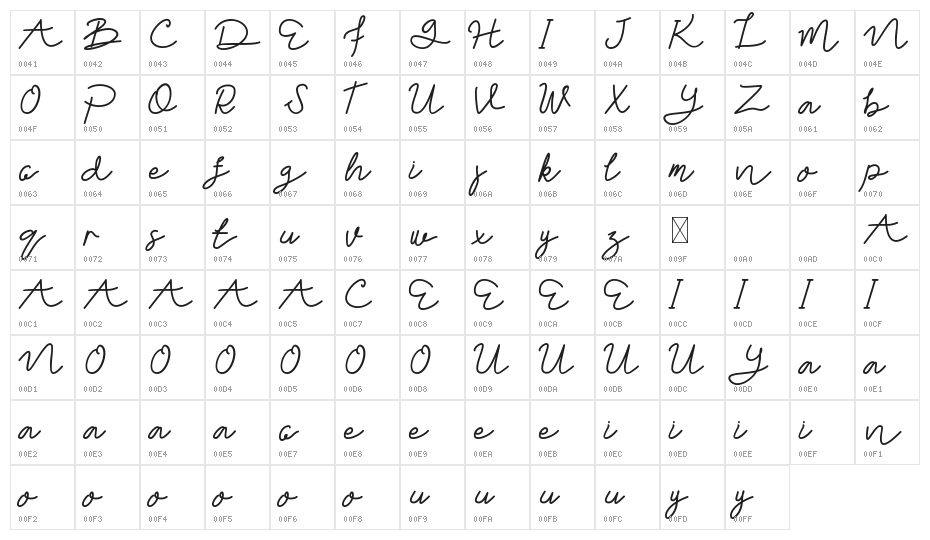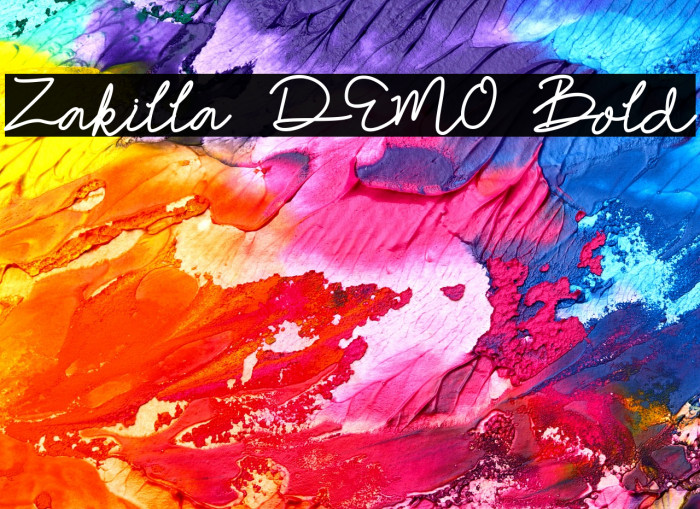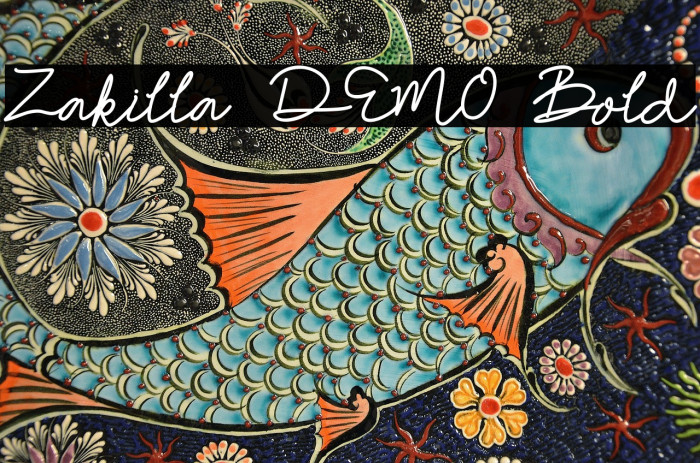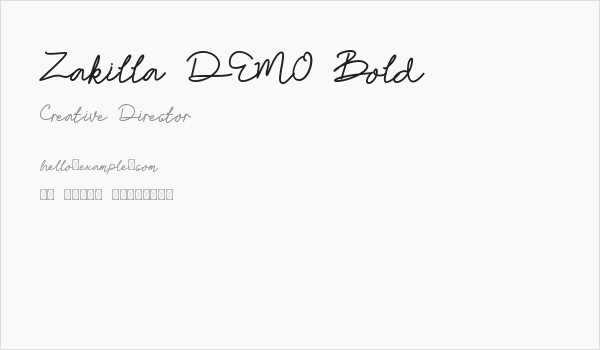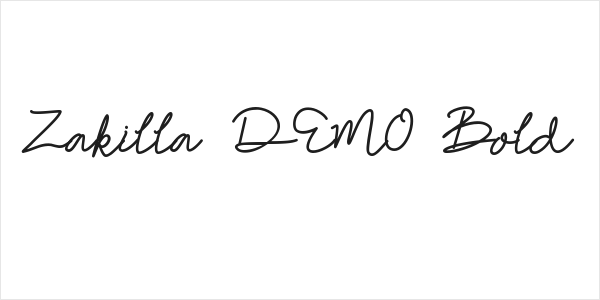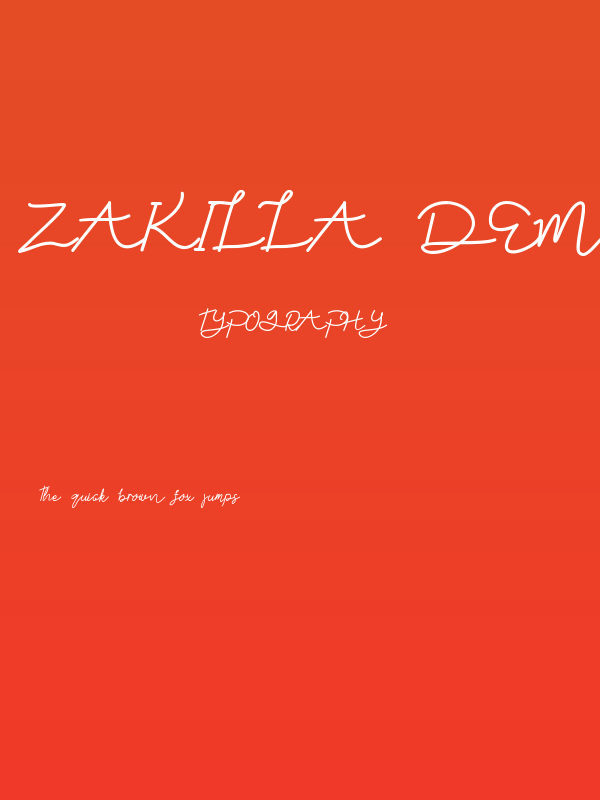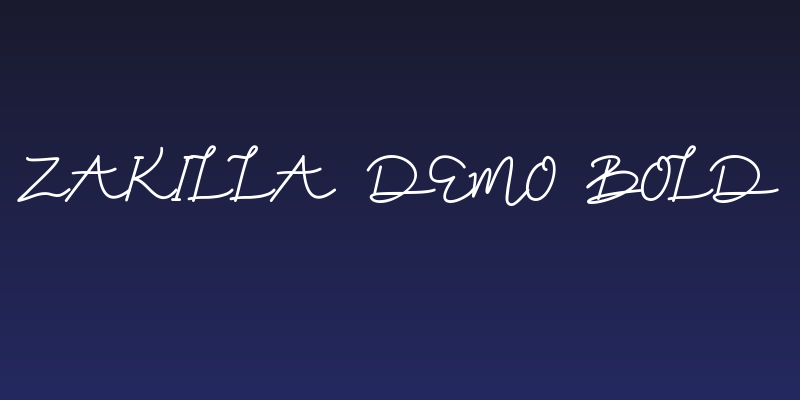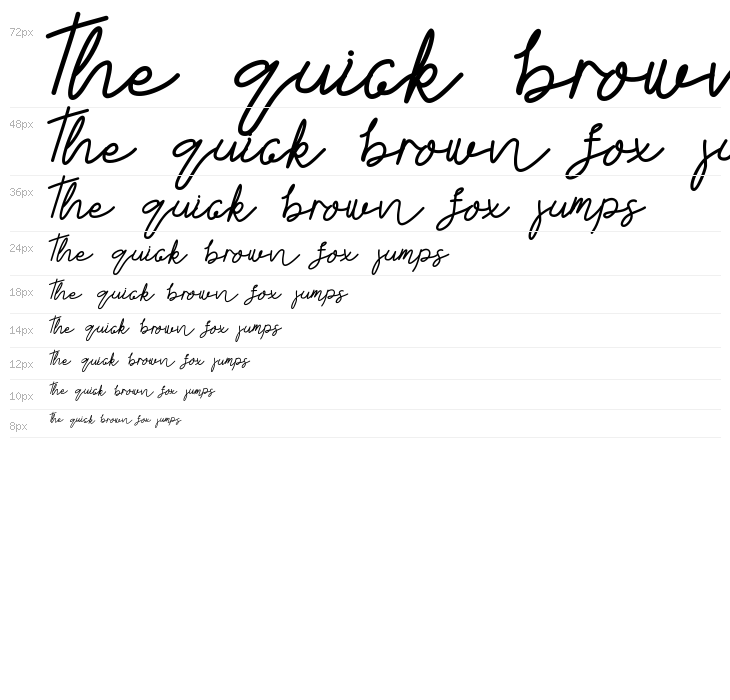
Zakilla DEMO Bold Font
Zakilla DEMO Bold Description
This font features a dynamic and flowing script style, characterized by its elegant and cursive letterforms. The strokes are smooth and connected, giving it a handwritten appearance. The uppercase letters are slightly more structured, while the lowercase letters exhibit a more casual and fluid design. The overall look is both artistic and legible, making it suitable for creative and expressive projects. The font maintains a consistent stroke width, contributing to its cohesive and harmonious appearance. Its playful yet sophisticated style makes it versatile for various design applications.
| Proposed Projects | Ideal for wedding invitations, greeting cards, branding, and artistic projects. |